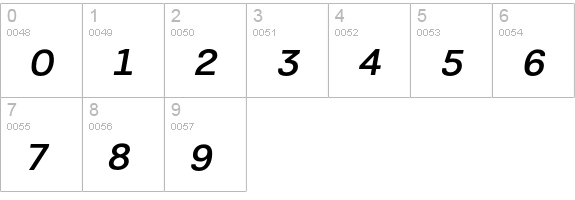
PFEncoreSansPro-MediumItalic Font Details
PFEncoreSansPro-MediumItalic is a modern and versatile font that strikes the perfect balance between professionalism and creativity. Its medium weight and slanted italic style add a touch of elegance to any design project. This font is perfect for conveying a sense of sophistication and style, making it ideal for a wide range of applications, from branding to print materials to digital content. What makes PFEncoreSansPro-MediumItalic even more appealing is that it is freely available to download at FontsMarket.com. This means that you can easily access this high-quality font and use it in your projects without any cost. Whether you are a designer, a marketer, a blogger, or anyone in need of a stylish and reliable font, PFEncoreSansPro-MediumItalic is a fantastic choice that will elevate your work to the next level. Don't miss out on the opportunity to enhance your designs with this exceptional typeface today.